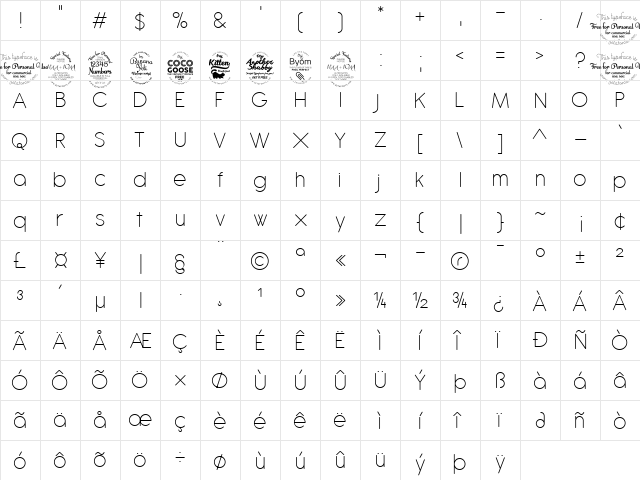
Antipasto ExtraLight
| Foundry | Studio Kmzero |
| Designer | Francesco Canovaro, Cosimo Lorenzo Pancini, Katiuscia Mari, Matteo Di Iorio |
Design Context for Antipasto Typeface
Antipasto is a composed and adaptable typeface that performs quietly and consistently across a wide range of design contexts. The delicate stroke weight brings airiness and refinement to layouts.